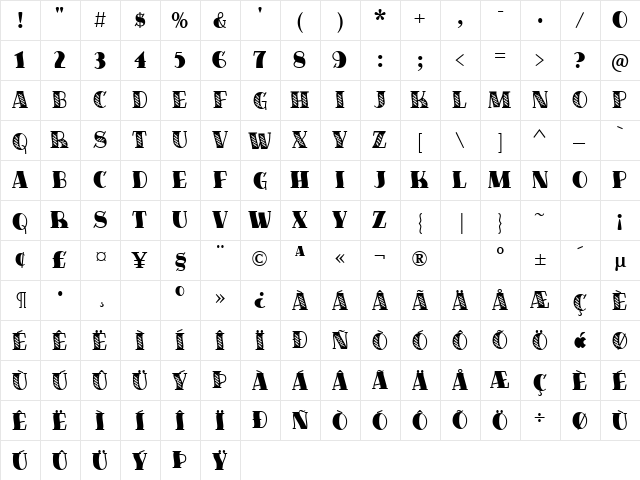
FiveOhOne Regular
Design Context for FiveOhOne Typeface
FiveOhOne is a composed and adaptable typeface that performs quietly and consistently across a wide range of design contexts.